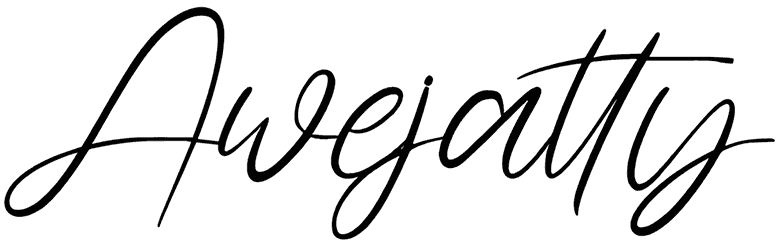
Awejatty Font
Finding a good script font is a challenge to read, and this particular area of typefaces is extremely picky for us, and we generally like most of what we see. Awejatty font has an excellent flowing feel with smooth strokes and wide arcs.
With this spring font, you can skip sorting through the junk and cut straight to the best script and hand-written fonts that are a bit unreadable, attractive, and perfect for your site.